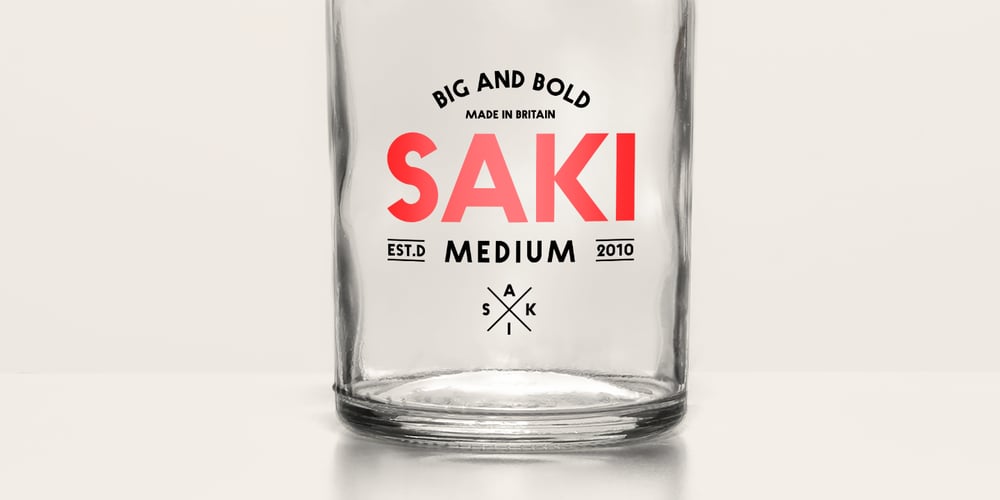
Saki
Saki font
Saki Font Family was designed by published by HyperFluro. Saki contains 2 styles and family package options. Saki is big and bold, presenting messages in an easy to understand, pleasant to read manner. Simple straight edges, shallow curves and sans-serif, Saki was created with legibility and minimalism in mind and its thick weight gives it great scalability. It is admirable for maintaining such close attention to form, each character fitting neatly into the space provided and slotting together smoothly for undistracted reading. For use in headlines and similar large text, Saki is the font you need to get your message across loud and clear, no ifs, ands or buts.